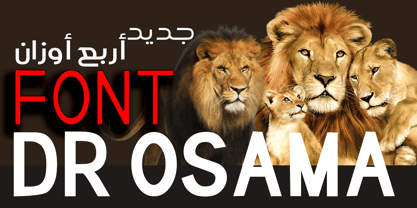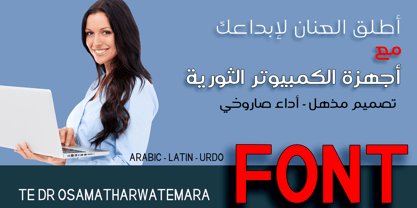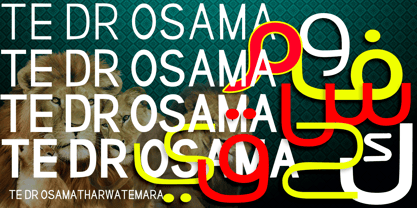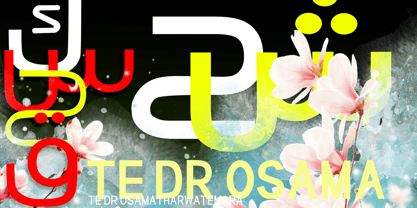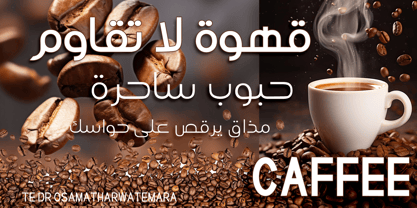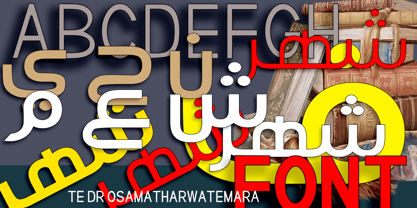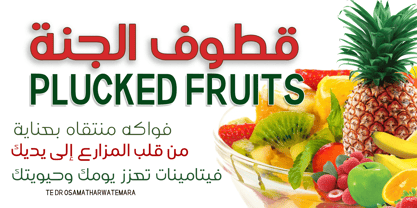
TE dr Osama
by Tharwat Emara
The TE dr Osama Font Family was designed by Tharwat Mohamed Emara and published by Tharwat Emara. TE dr Osama contains 4 styles and family package options. More about this family
The TE Dr Osama Tharwat Emara font is a distinguished Arabic and Latin typeface designed by the renowned Egyptian calligrapher Tharwat Mohamed Emara. This font stands out for its elegant design, blending tradition with modernity, making it versatile for various creative applications. It supports both Arabic and Latin scripts, offering multiple weights ranging from light to regular and bold, providing designers with great flexibility for creating diverse designs such as advertisements, titles, logos, and printed materials. The font is characterized by its clear, readable lines with an artistic touch that preserves the beauty of traditional Arabic calligraphy. It is well-suited for both digital and print designs, making it an ideal choice for projects requiring harmony between the two scripts.
Designers: Tharwat Mohamed Emara
Foundry: Tharwat Emara